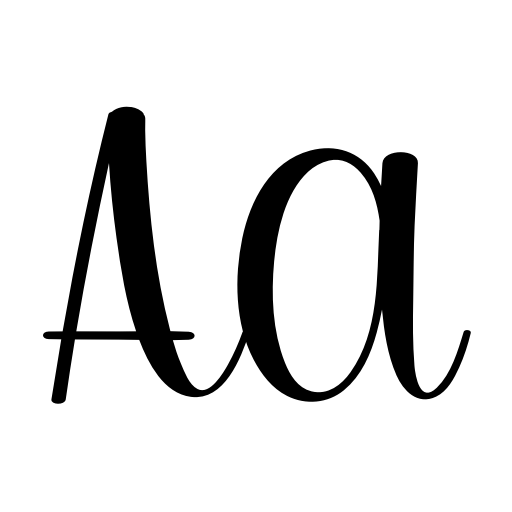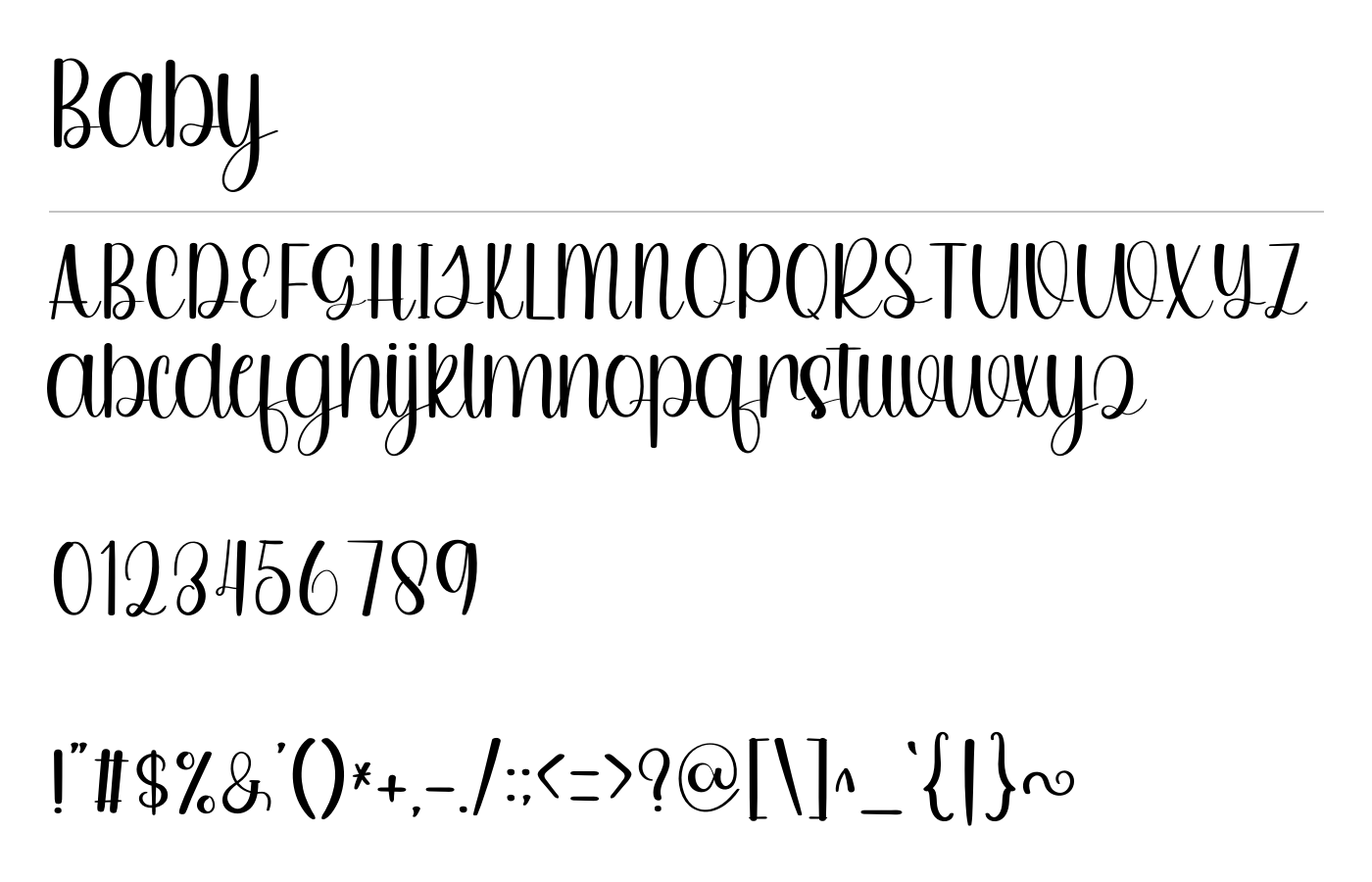
Baby Font is a playful, handwritten script with a light, airy feel and tall, slender letterforms that blend elegance with whimsy. Its smooth curves and slightly varied stroke widths make it perfect for projects that want to convey freshness, creativity, and a friendly personality, such as children's products, casual branding, and invitation designs. This font works best in headlines, logos, or decorative text where a unique and charming touch is needed.
Baby Font